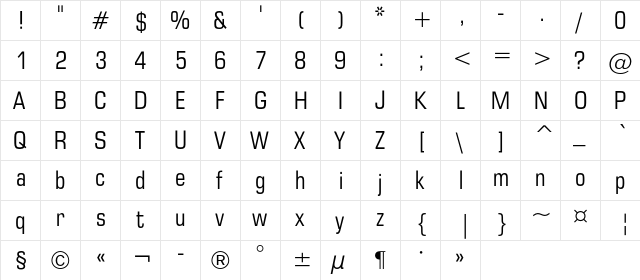
EuropeCond Regular
Design Context for EuropeCond Typeface
EuropeCond offers clean, dependable letterforms without strong stylistic allegiance, making it a practical choice for designers who need flexibility. The condensed width makes it efficient for tight spaces without sacrificing legibility.